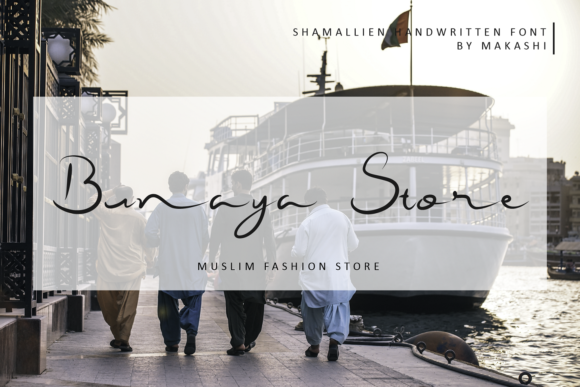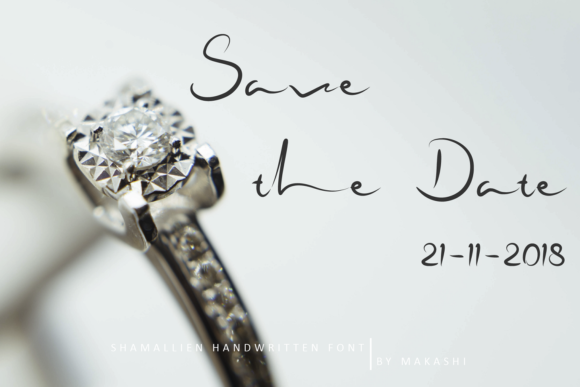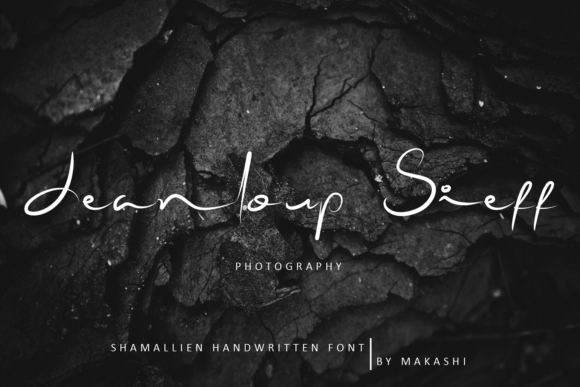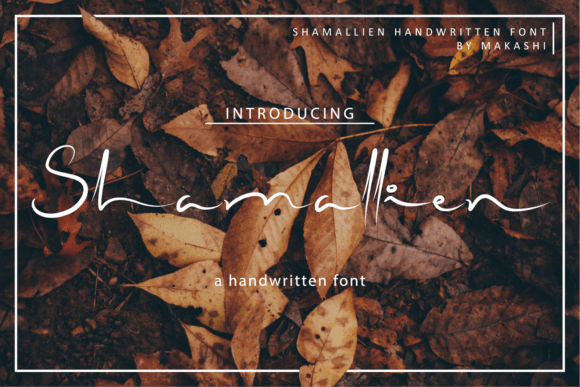
Shamallien Script Font
A luxury and fashionable handwriting font, which looks like a signature. Create your own design by choosing this wonderful handwritten font. Introducing Shamallien Handwritten Font! The Shamallien is an elegant script font. It has a beautiful handwritten style which makes it perfect for adding a natural feel to your designs. Shamallien is best for: blog, logo, social media, branding, poster, quotes, wedding cards & so forth, you decide!